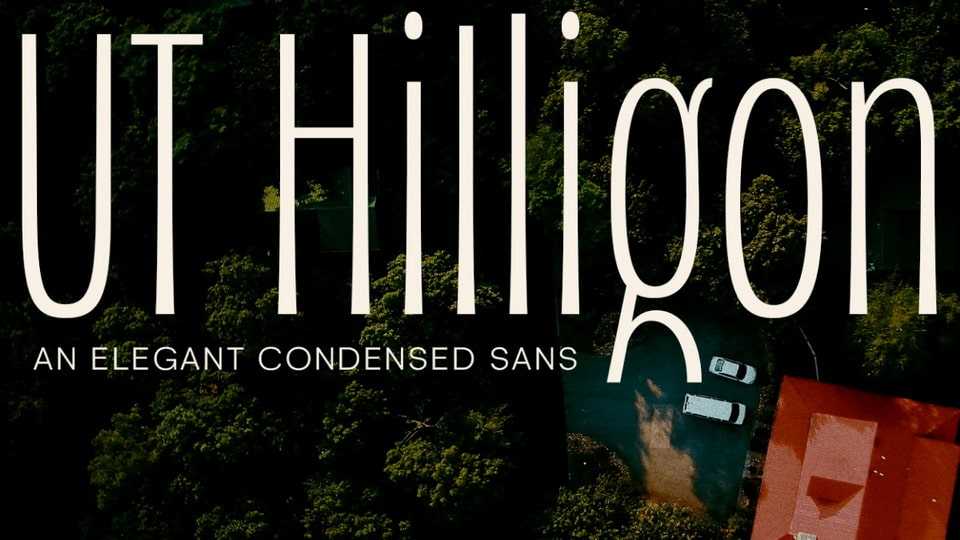
Download UT Hilligon font, an elegant condensed typeface that transcends conventional typography, weaving the organic charm of nature into a luxurious aesthetic.
Designer: Universitype Foundry